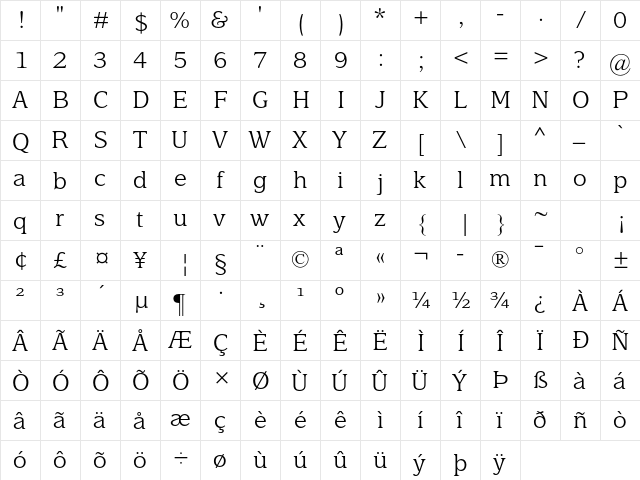
Delima MT Std Light
Design Context for Delima MT Std Typeface
Delima MT Std is a composed and adaptable typeface that performs quietly and consistently across a wide range of design contexts. The delicate stroke weight brings airiness and refinement to layouts.